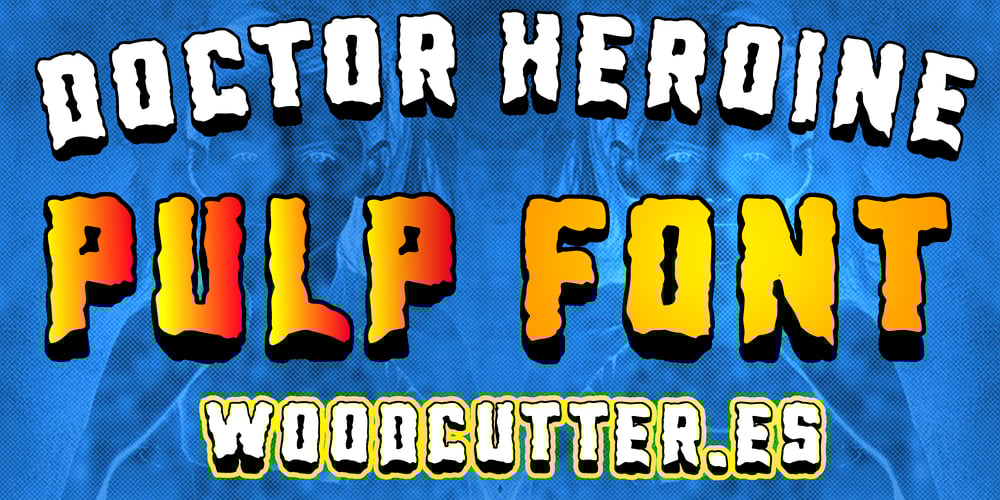
Doctor Heroine Font Family was designed by Jordi Manero and published by Woodcutter. Doctor Heroine contains 1 styles and family package options. “Doctor Heroine” is an uppercase typeface that evokes the iconic style of classic pulp magazines. Its hollow letters feature solid strokes and irregular shadows, adding dynamic and vintage character. Each letter is designed to combine drama and an artisanal touch, making it ideal for conveying a retro and narrative feel. It also includes accents, making it perfect for multilingual texts. This font is an excellent choice for bold posters, book covers, or projects aiming for a nostalgic yet striking look, with a memorable visual impact.